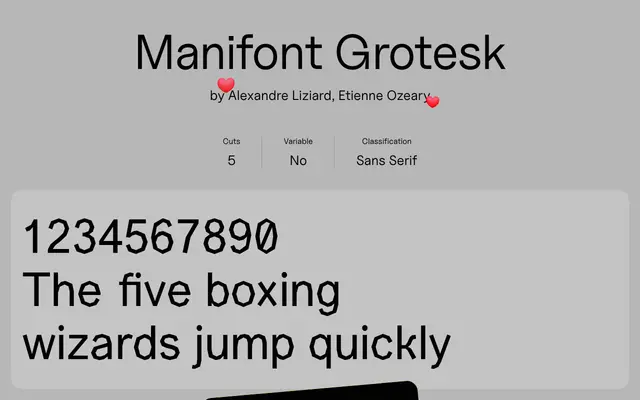
Manifont Grotesk
A five-cut grotesque sans by Alexandre Liziard and Etienne Ozeary, available free under the SIL Open Font License for commercial and personal use.
Manifont Grotesk is a grotesque sans-serif released in five cuts, designed by Alexandre Liziard and Etienne Ozeary. It carries no variable axis and is not accompanied by italics, keeping its offering focused and straightforward. Licensed under SIL OFL 1.1, it permits commercial use, modification and redistribution with conditions.
Listed under Sans Serif on the page; the name 'Grotesk' signals a grotesque classification within the sans-serif tradition.